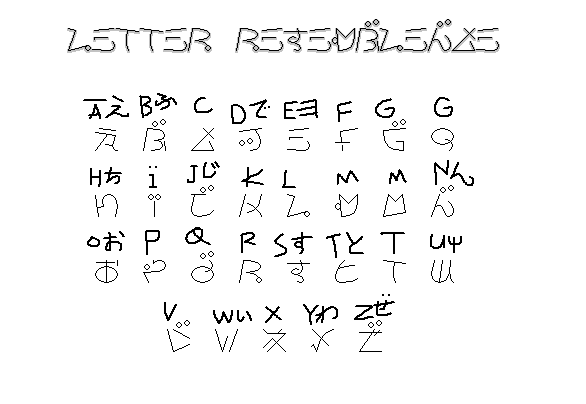
• I FINALLY DECIPHERED THE SPLATFEST SCRIPT (kinda?)
made up concept letters:
c (made from か/カ)
j (made from じ)
q (made from alt. g)
v (made from ゔ)
x (made from キス)
UPDATE JULY 2025: AN OFFICIAL J HAS BEEN DISCOVERED